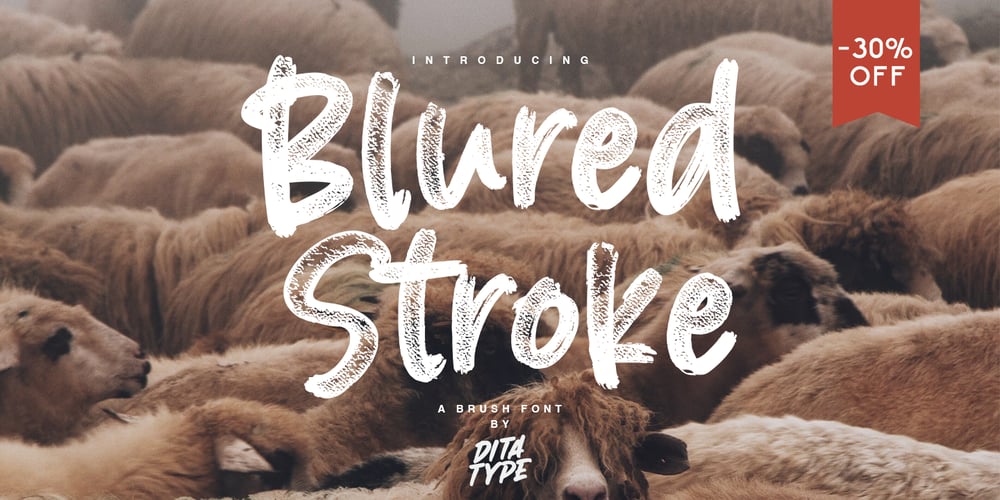
Blured Stroke Font Family was designed by Donis Miftahudin and published by Ditatype. Blured Stroke contains 1 styles and family package options. Blured Stroke is a beautiful script font. Every letter in this font looks like it was created with a skillfully swung brush. The subtle and soft brush strokes are clearly visible at every angle and bend, giving the entire font an artistic and expressive feel. The ends of each letter tend to be rounded, giving it a soft and elegant touch. This font is designed with detail and a perfect balance between thick and thin strokes. The thicker lines bring out strength and firmness, while thinner lines add softness and elegance to this font. The perfect combination of these differences creates an eye-catching visual harmony and expresses a unique writing style. The colors used in this font can vary, but to maintain a soft impression, bright colors would be the right choice. The letters remain legible and understandable because they have clear outlines. Enjoy the various features available in this font.Features: Ligatures Multilingual Supports PUA Encoded Numerals and Punctuations Blured Stroke fits best for any design projects that want to convey tenderness, friendliness and creativity. This font can be used in the invitations, greeting cards, brand logos, promotional materials, and many other design projects that require a warm artistic touch and are full of personality. Find out more ways to use this font by taking a look at the font preview.Thanks for purchasing our fonts. Hopefully, you have a great time using our font. Feel free to contact us anytime for further information or when you have trouble with the font. Thanks a lot and happy designing.